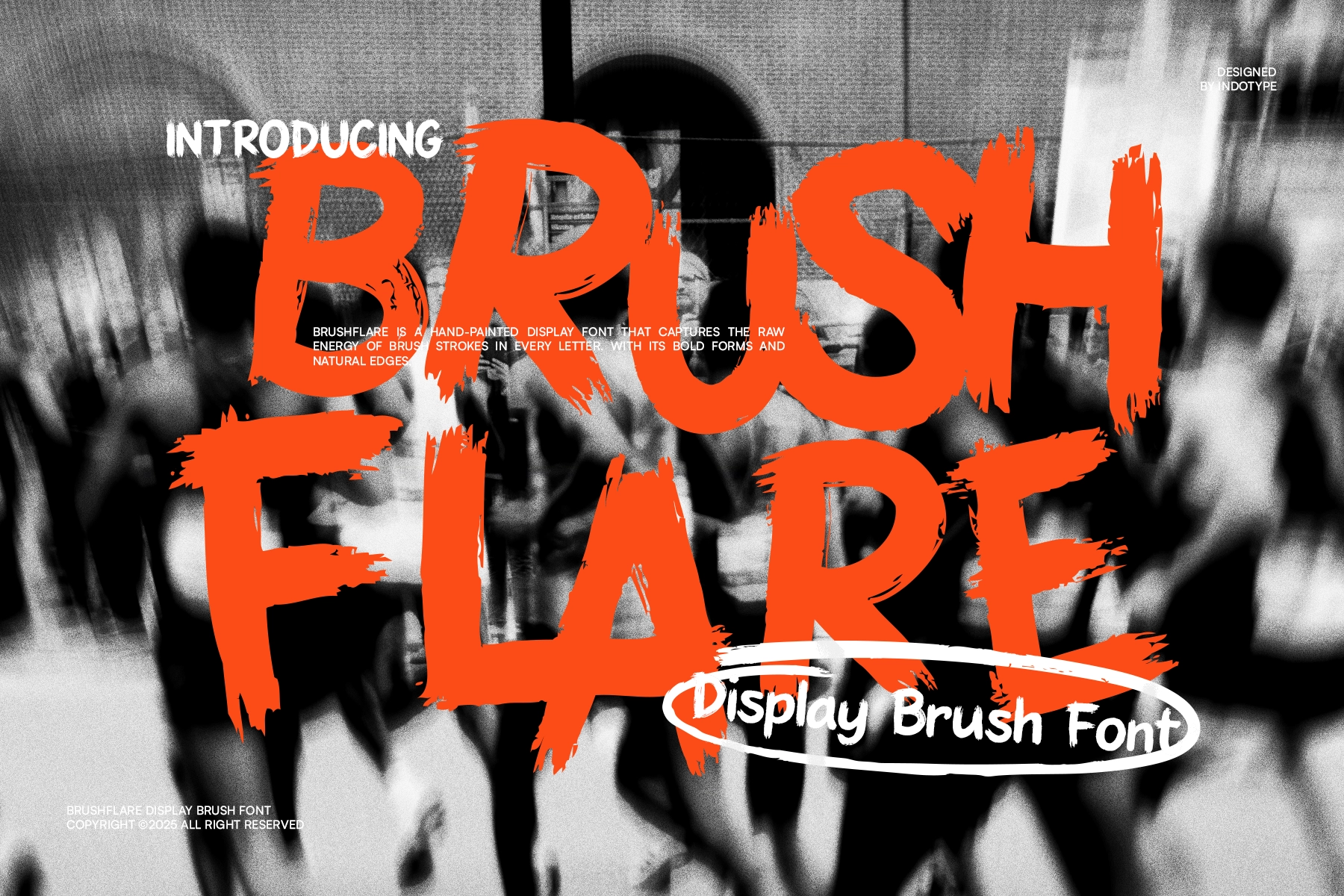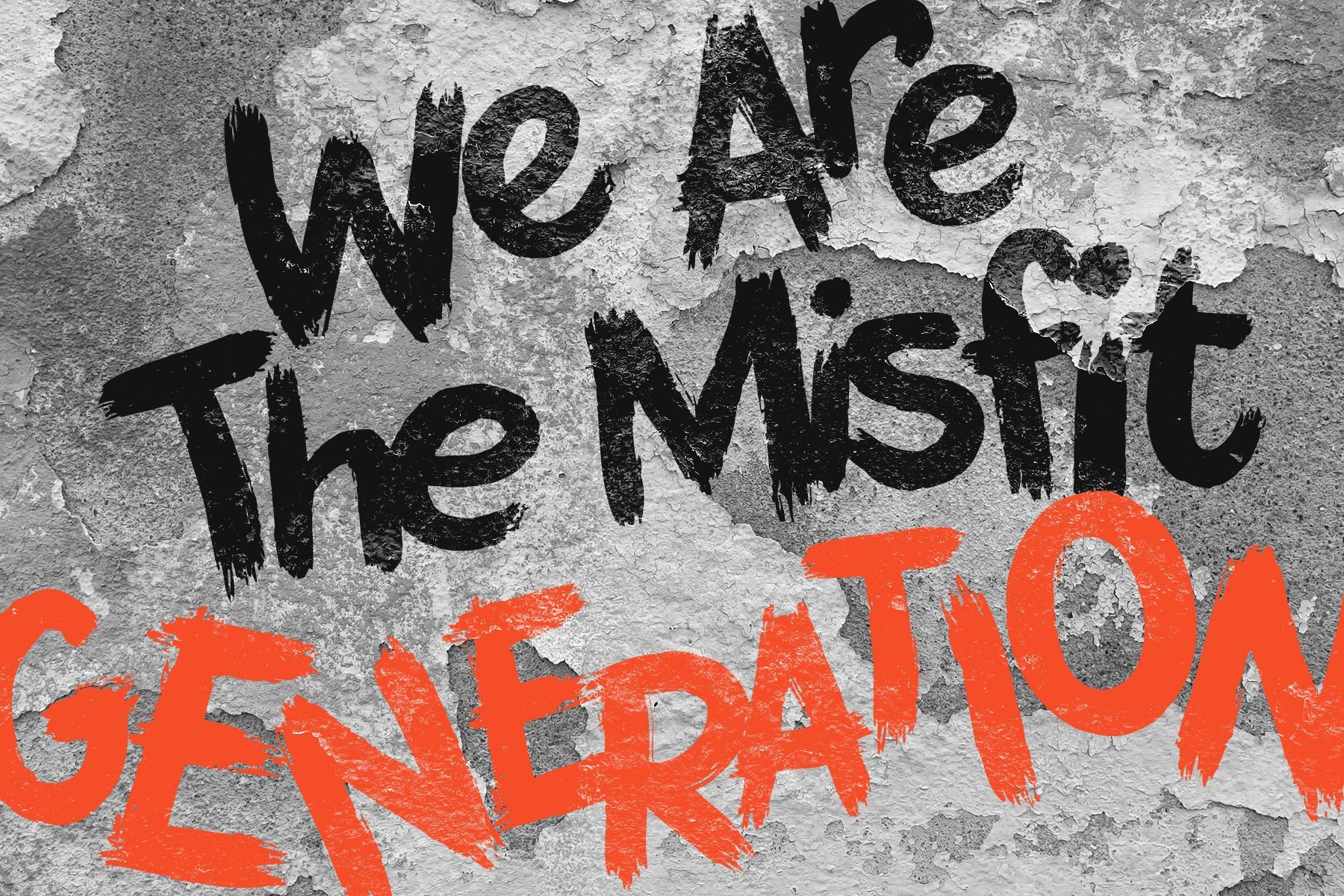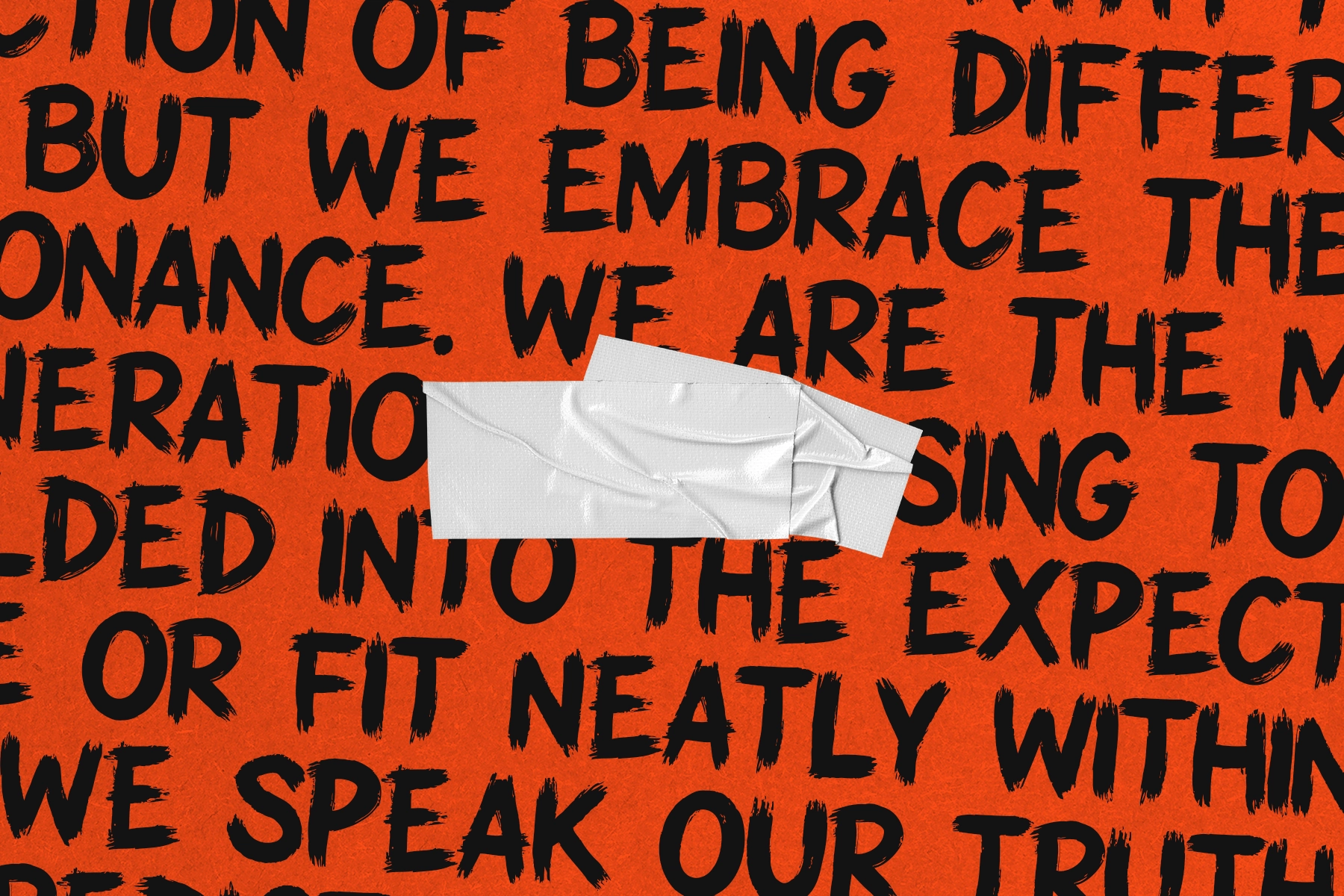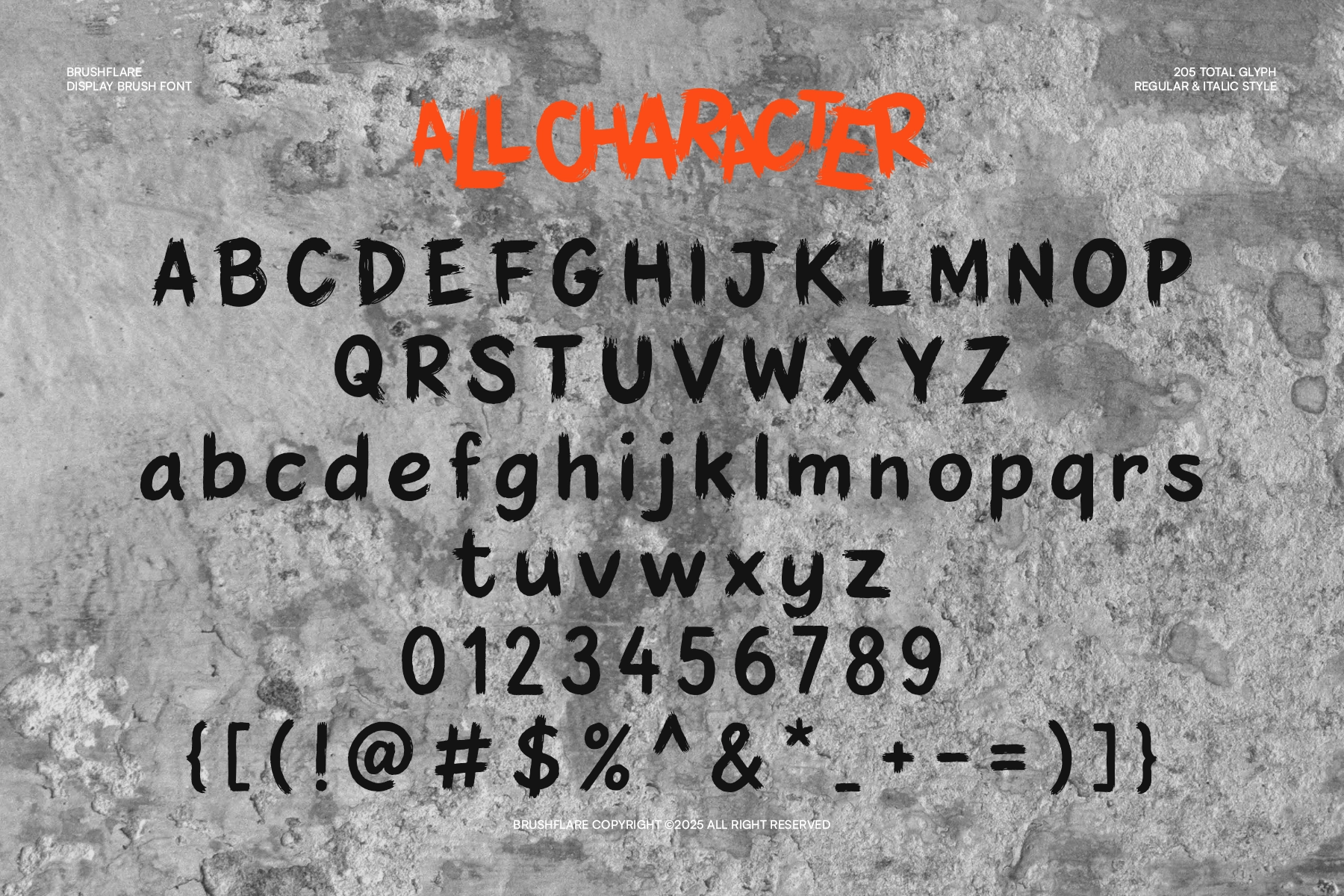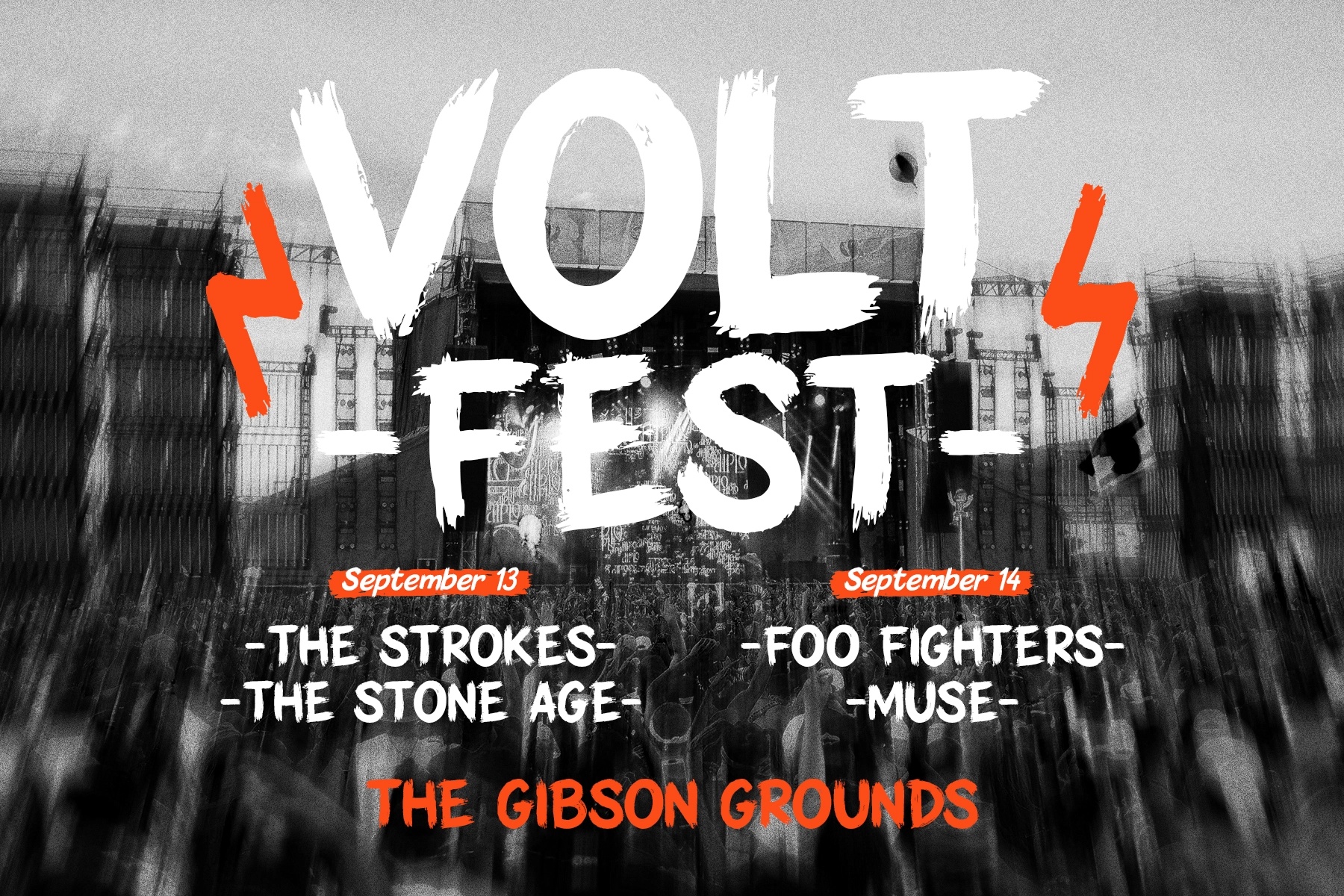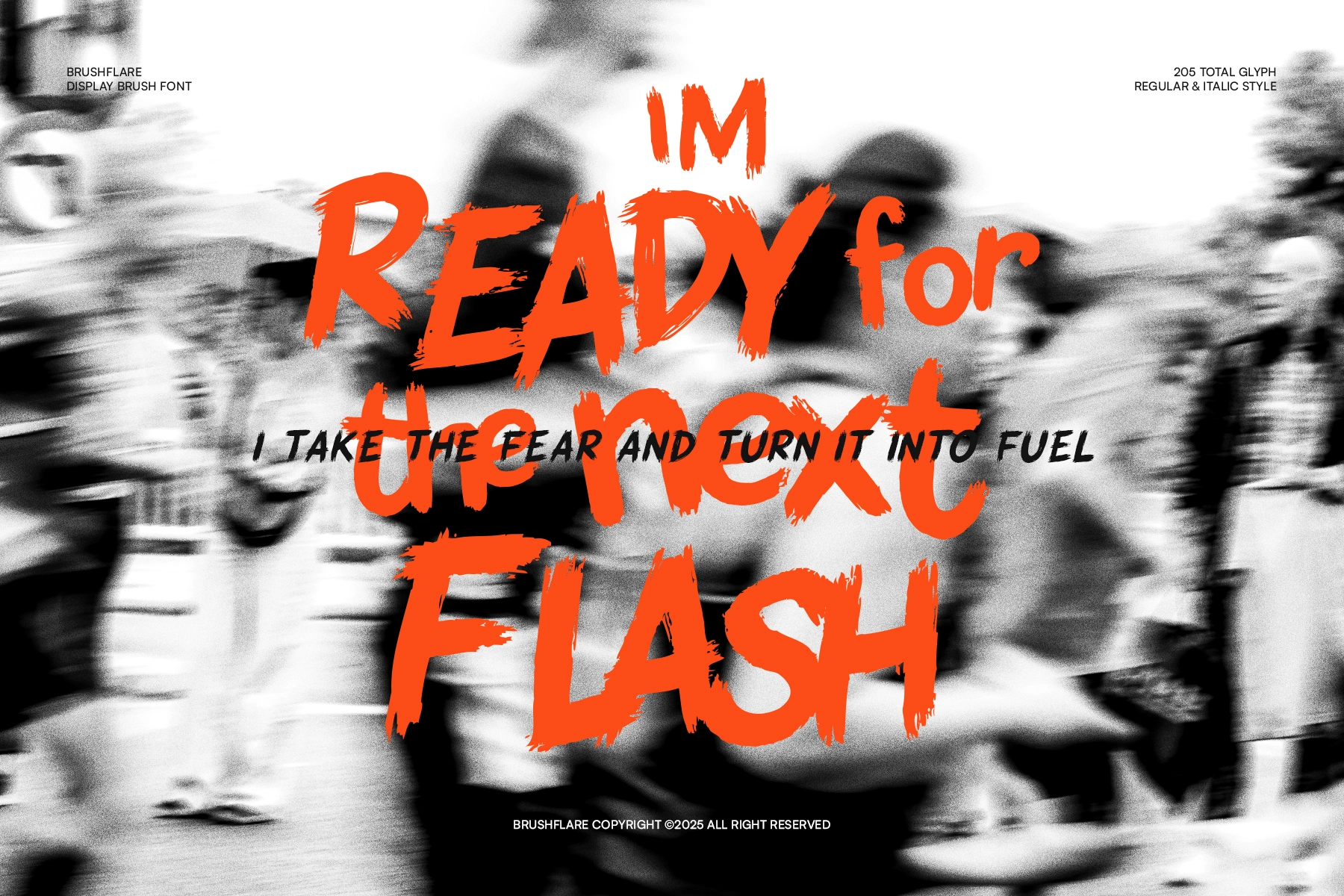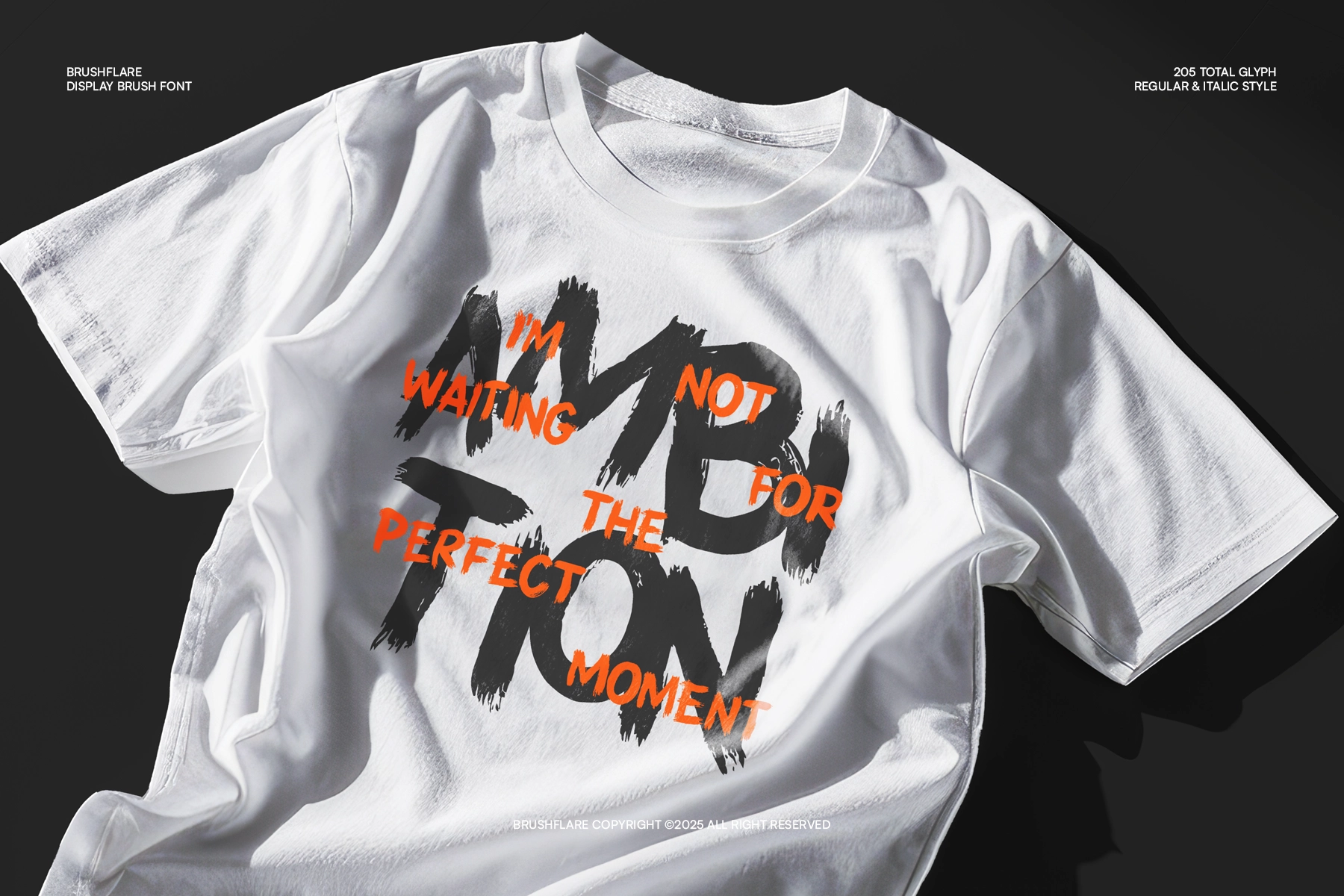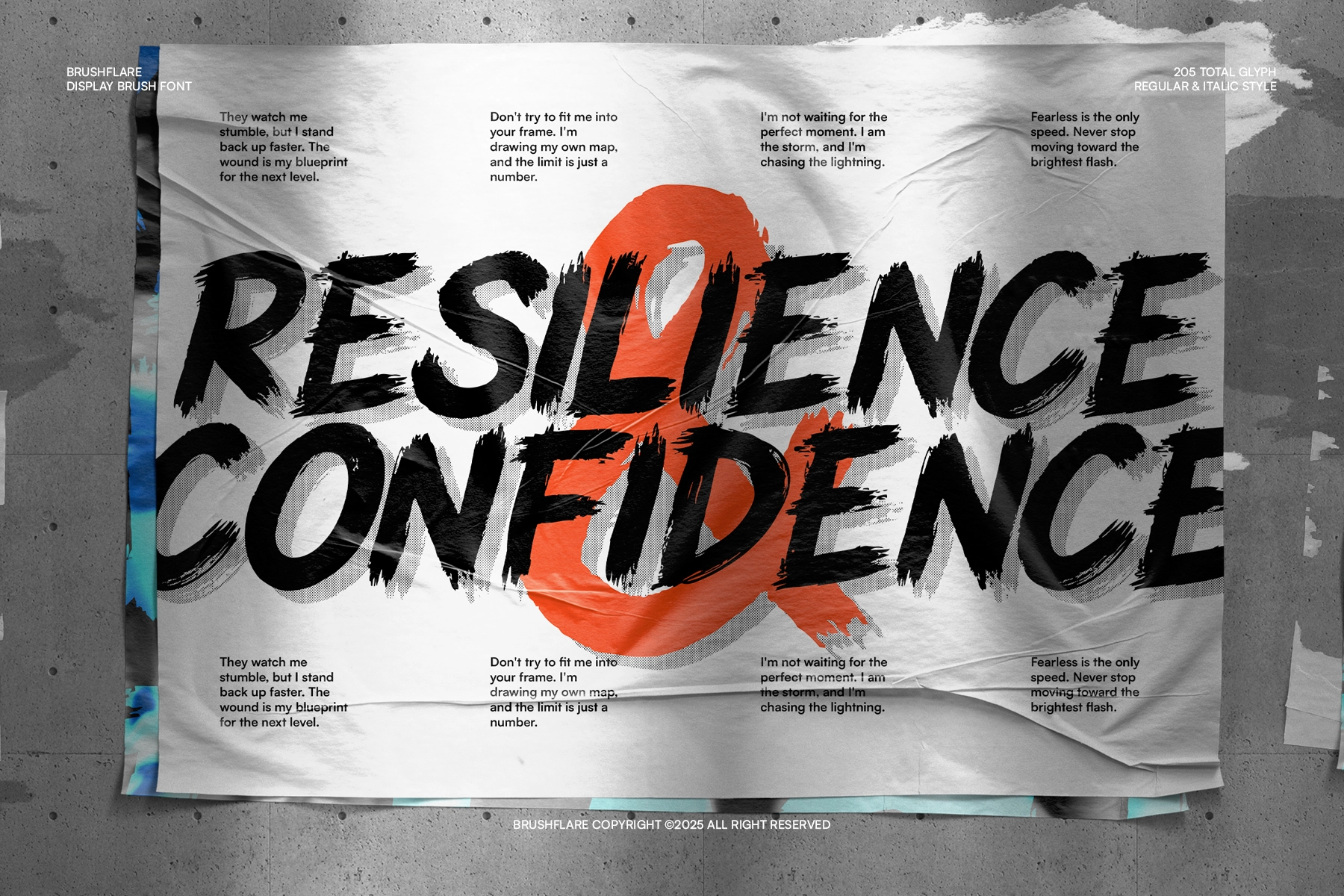
Brushflare - Hand-Painted Brush Display Font
Brushflare is a hand-painted brush display font where every stroke shows its bristle work — thick stems with frayed edges, ink pulled across the form in visible parallel lines, and a weight that reads as applied fast and hard. The Regular sits upright with a compact, rounded construction; the Italic leans into the motion, the letterforms opening up slightly as if the brush picked up speed mid-word. Together they land in straight street-poster and protest-placard territory.
The texture holds well at any scale — it reads as raw on a phone screen and as properly painted-on-wall at billboard size. Use it for music festival headlines, album covers, streetwear and sportswear graphics, gig posters, event flyers, YouTube thumbnails, skateboarding and action sports branding, merch prints, and social campaign graphics where a clean font would kill the energy.
- 2 styles: Regular, Italic;
- uppercase & lowercase;
- numerals, punctuation & symbols;
- superscripts & ordinals;
- multilingual support;
- 205 glyphs per style